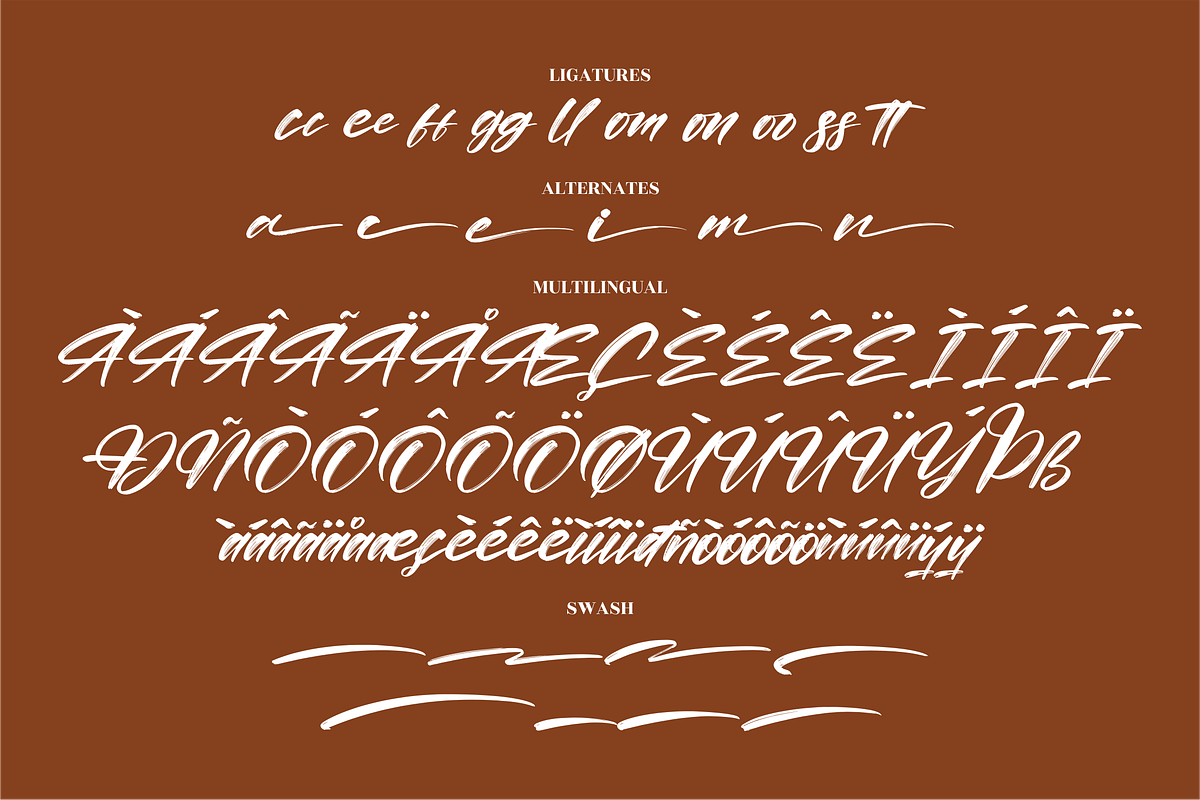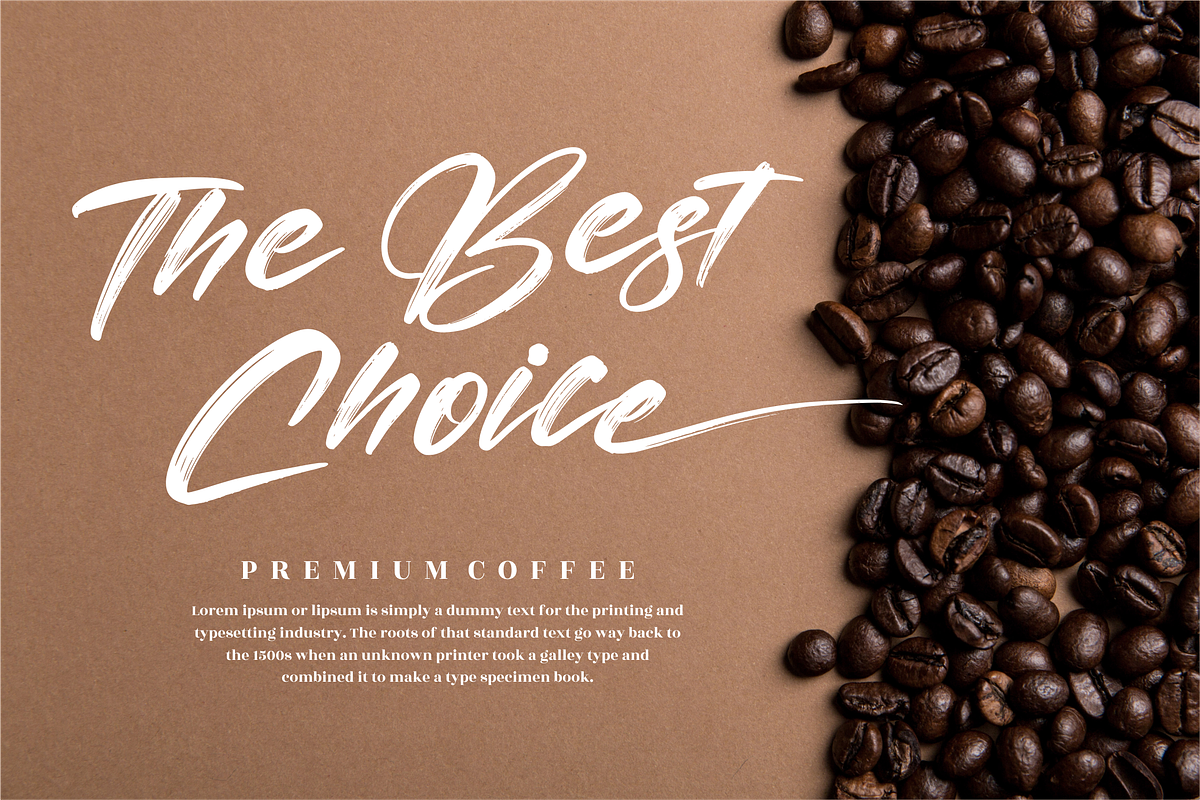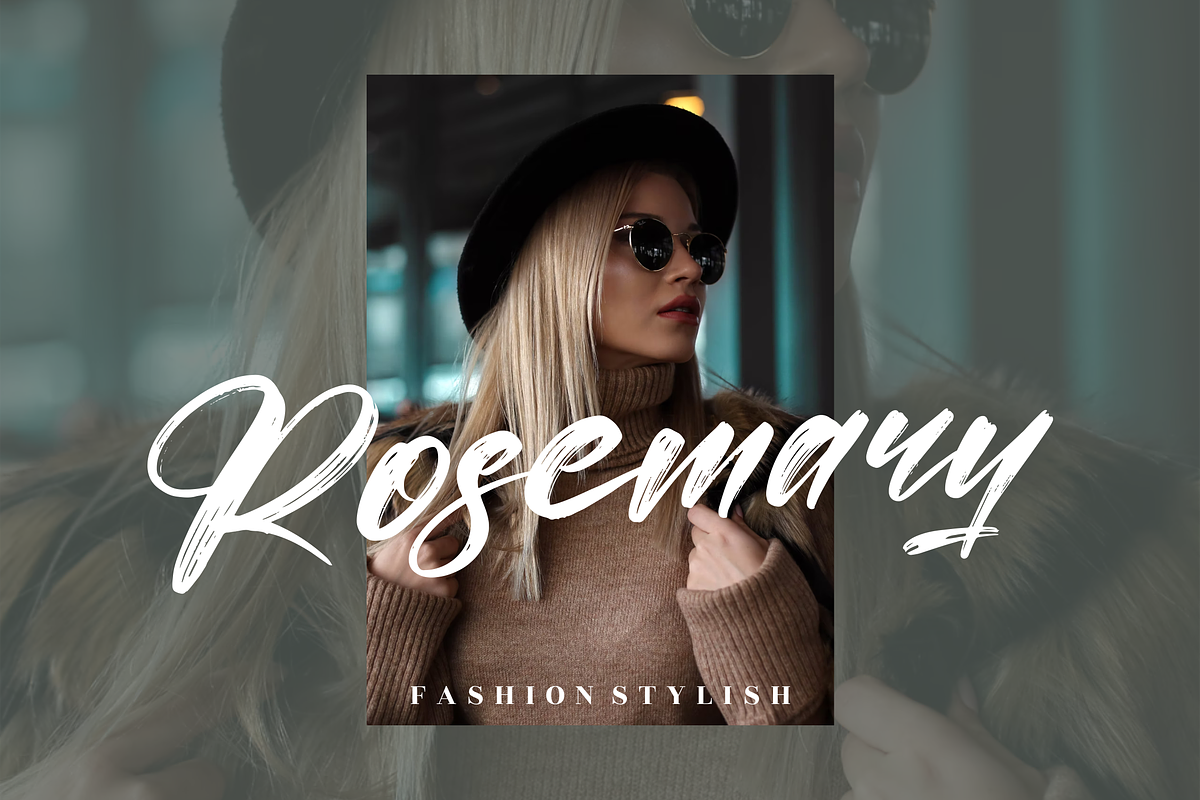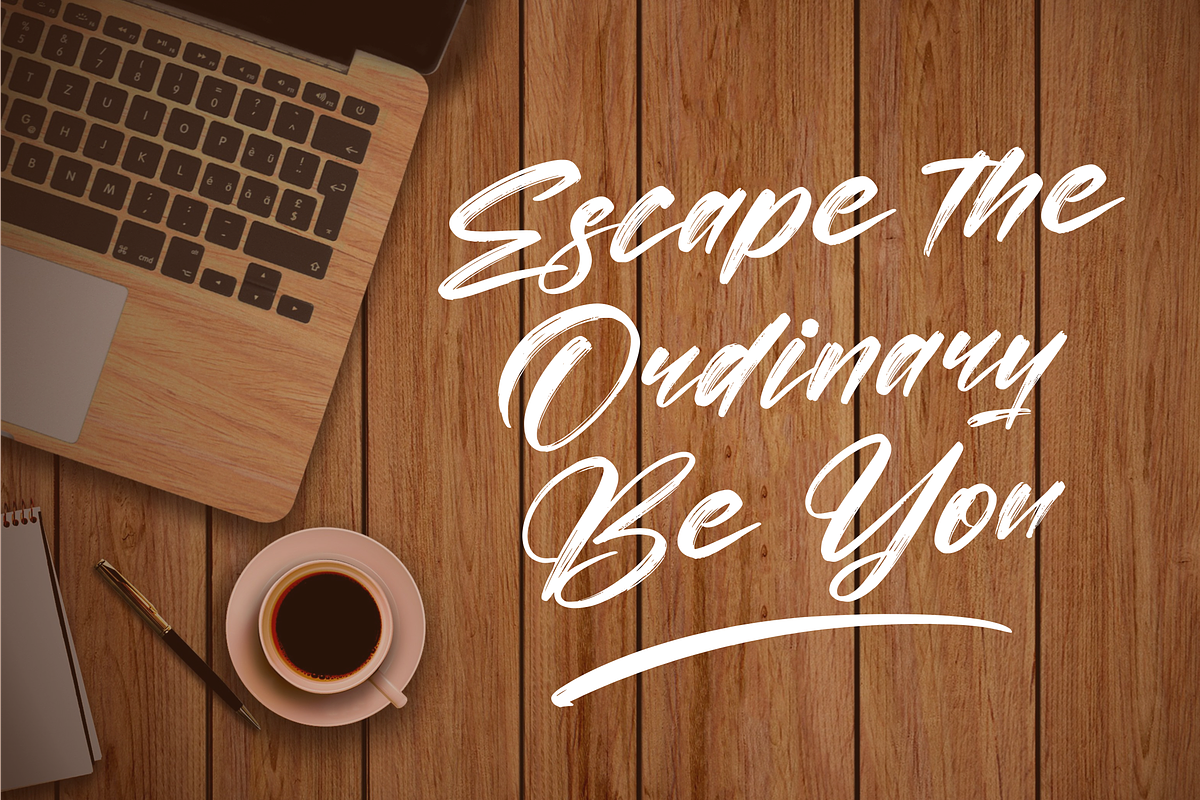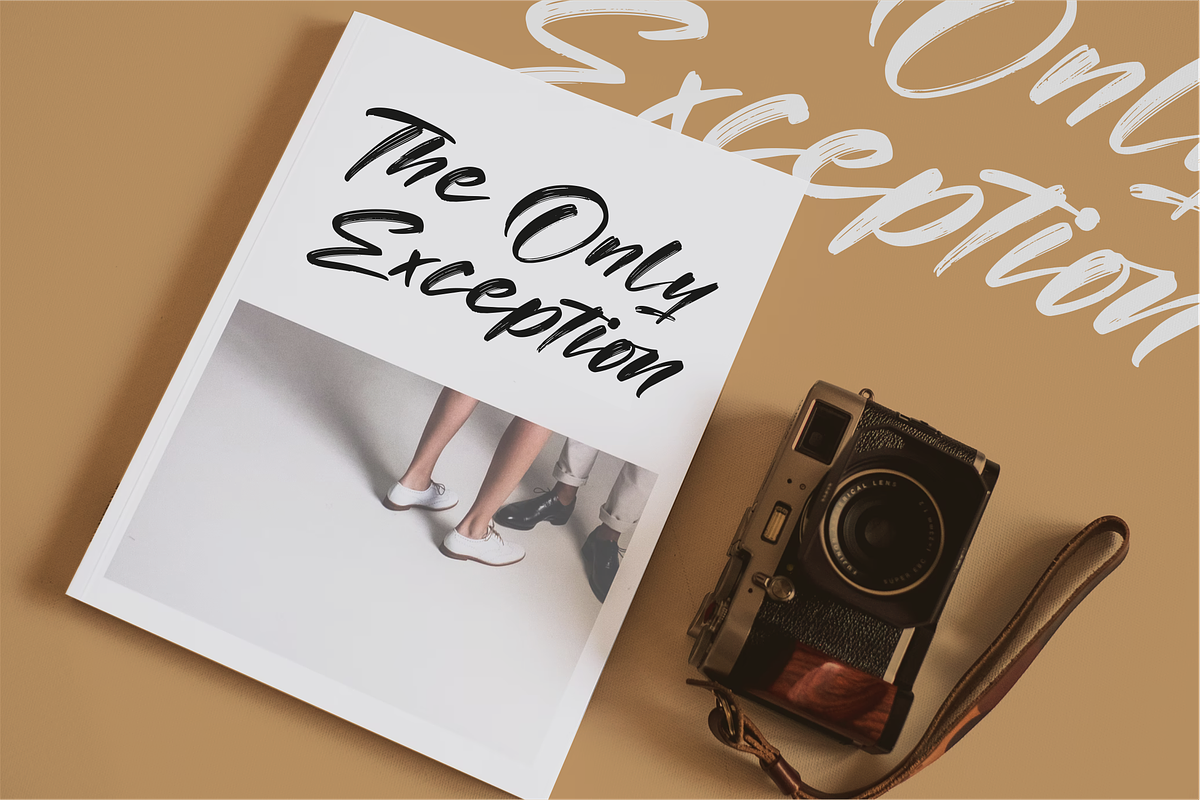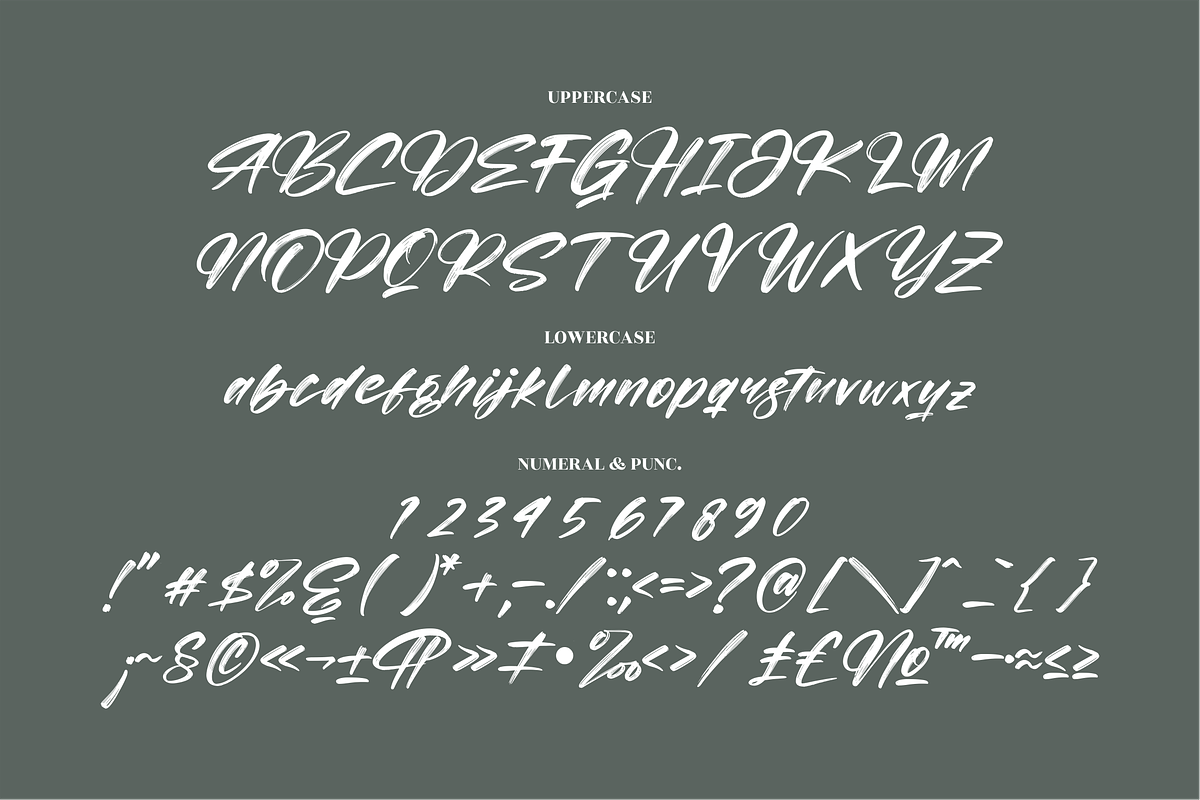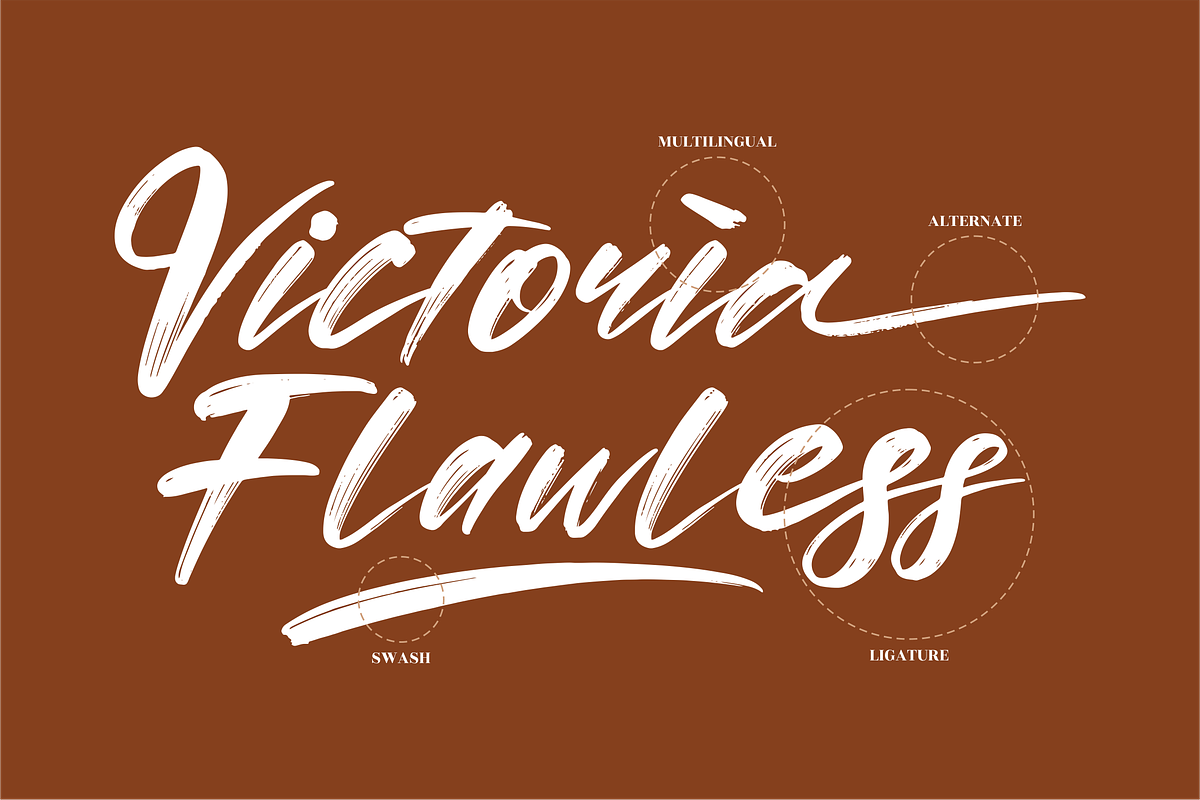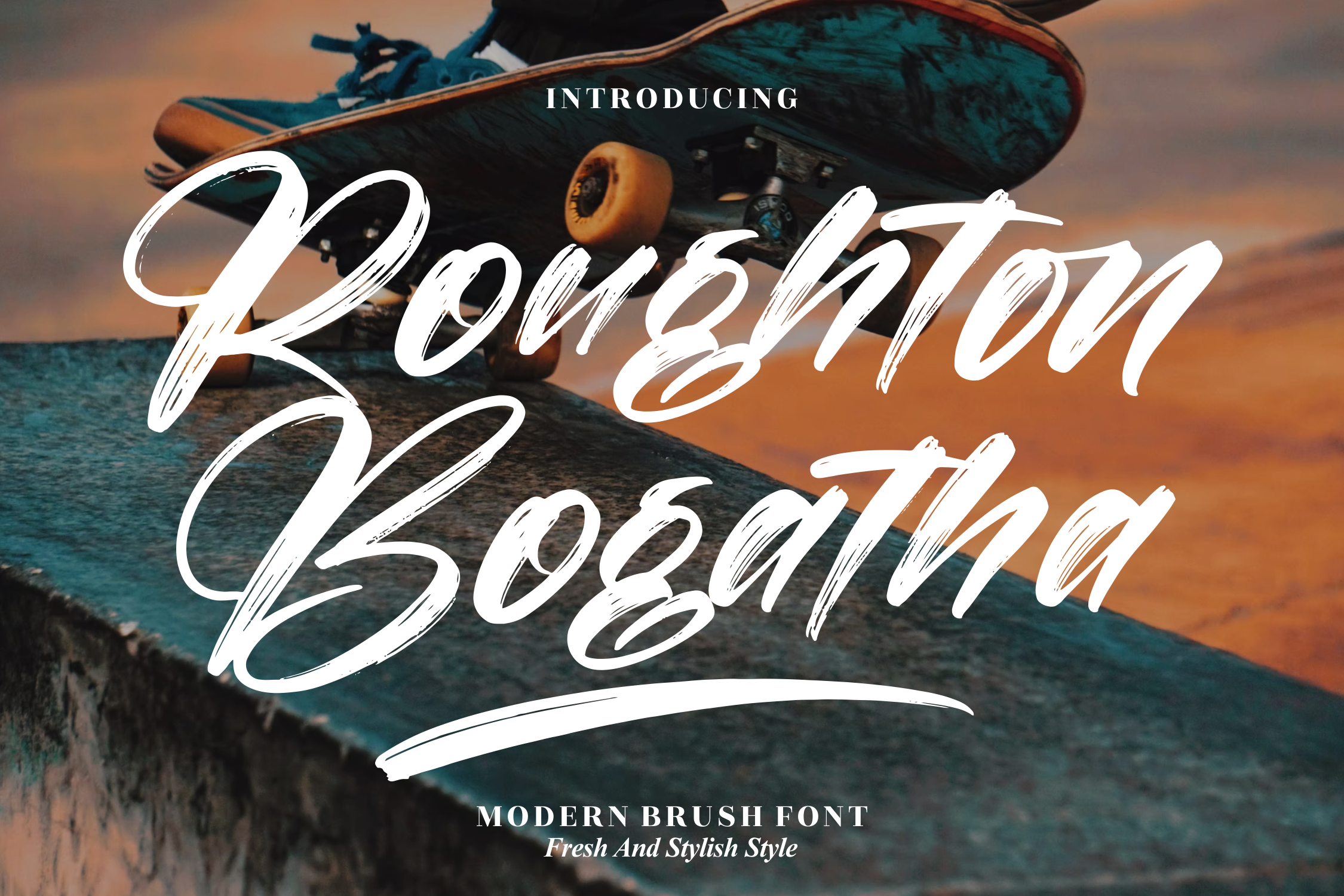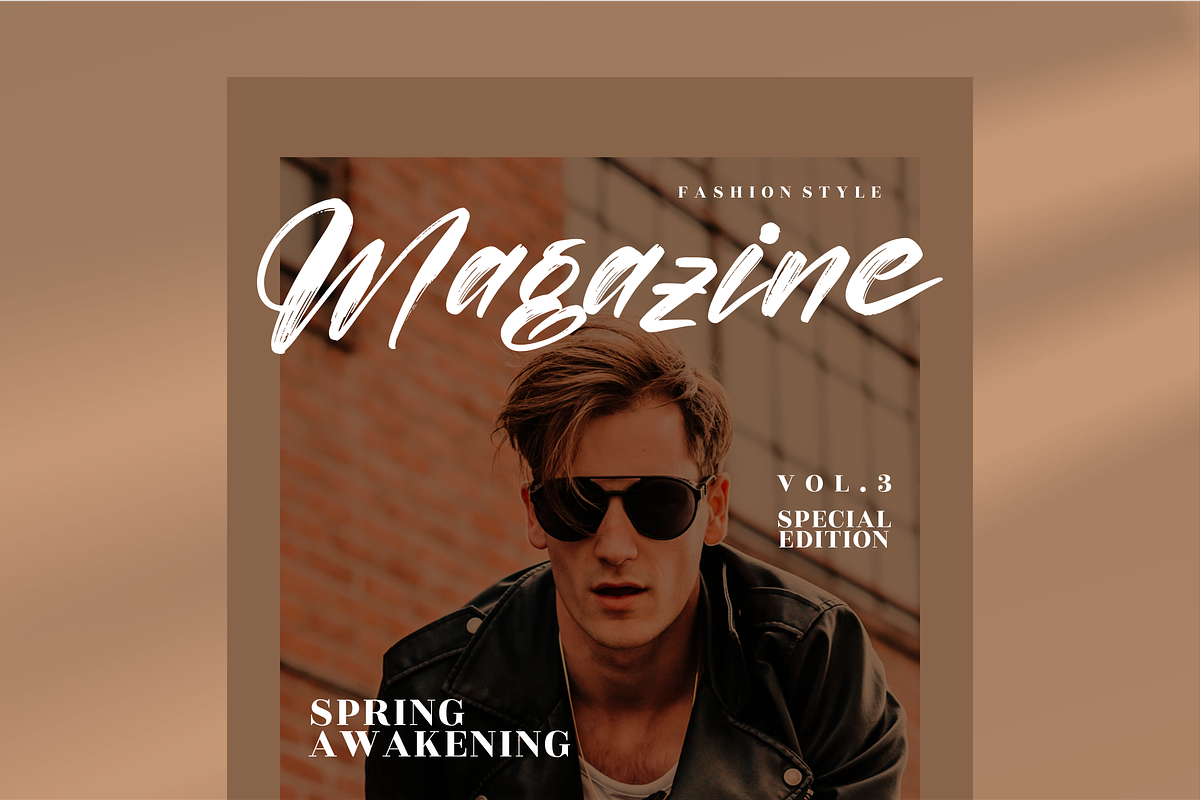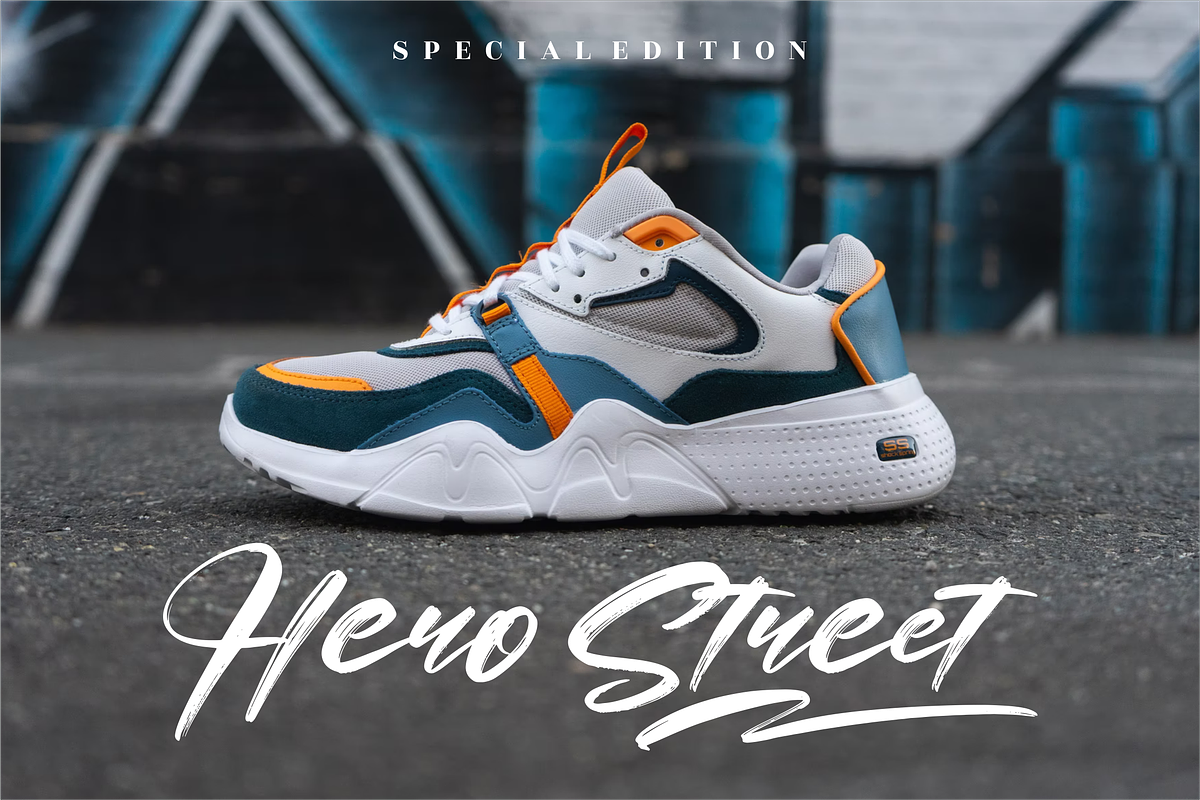
Roughton Bogatha Modern Brush Font
Roughton Bogatha – Modern Brush Font, from Letternity Studio, is a beautiful script font, suitable for any projects such as: logos, branding projects, homeware designs, product packaging, mugs, quotes, posters, shopping bags, t-shirts, book covers, name card, invitation cards, greeting cards, label, photography, watermark, special events, and all your other lovely projects that need a beautiful script taste.